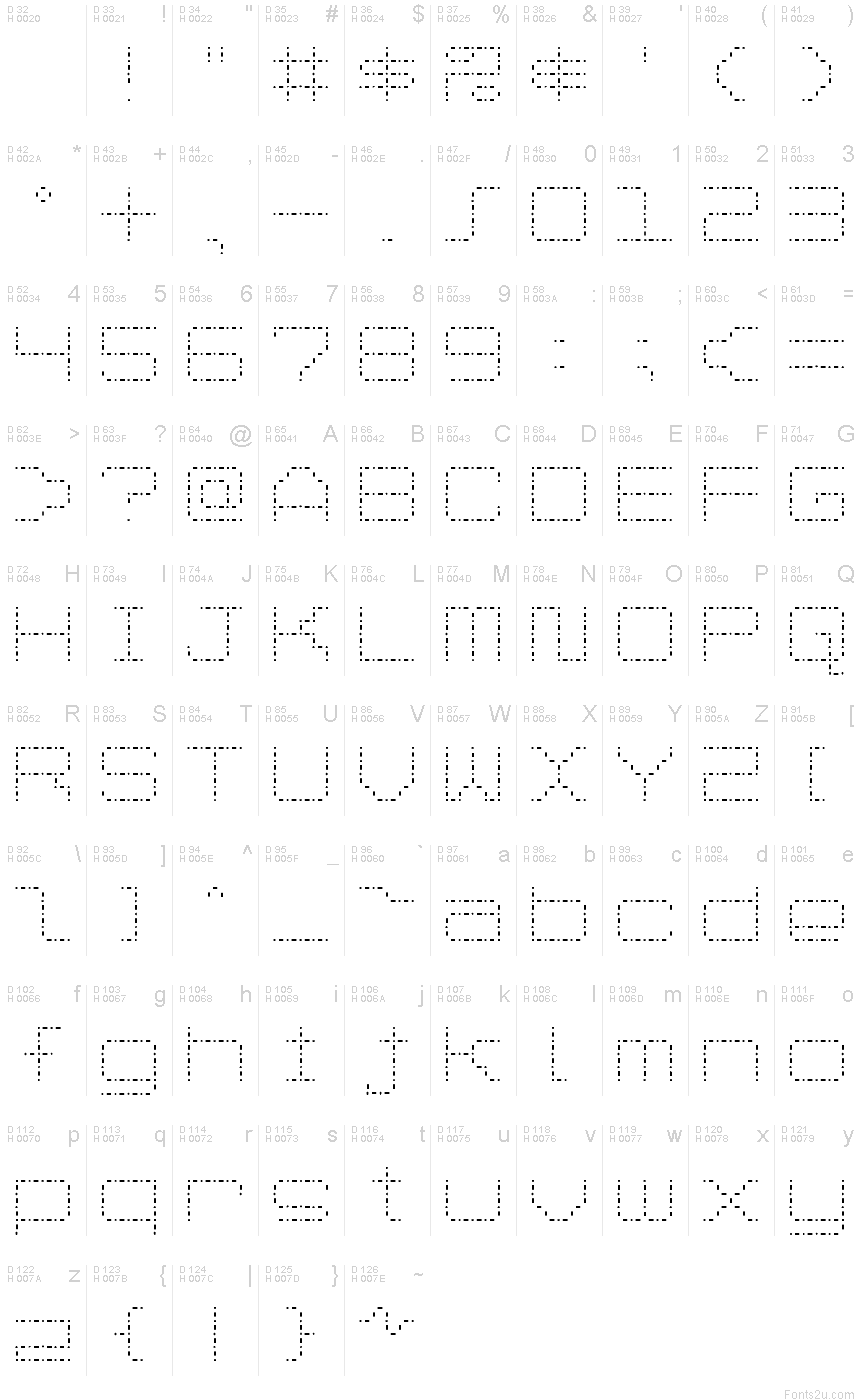
Spot Matrix
Spot Matrix by StimulEye Fonts is a free digital display font with a dry, dot-matrix rhythm and a distinctly late-1990s screen feel. The letters are built from evenly spaced square marks, so the font reads like printed ticker tape or a stripped-down LED sign rather than smooth drawn strokes.
That makes it a natural fit for tech posters, game menus, zine covers, event flyers, and title cards that want a blunt electronic texture. As a free font, it also suits short headlines, data-themed branding, and interface-inspired graphics, where the broken grid gives even simple words a coded, machine-made edge.